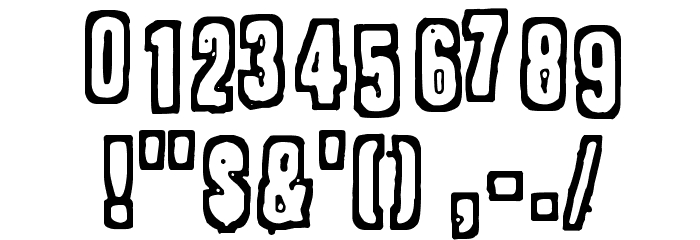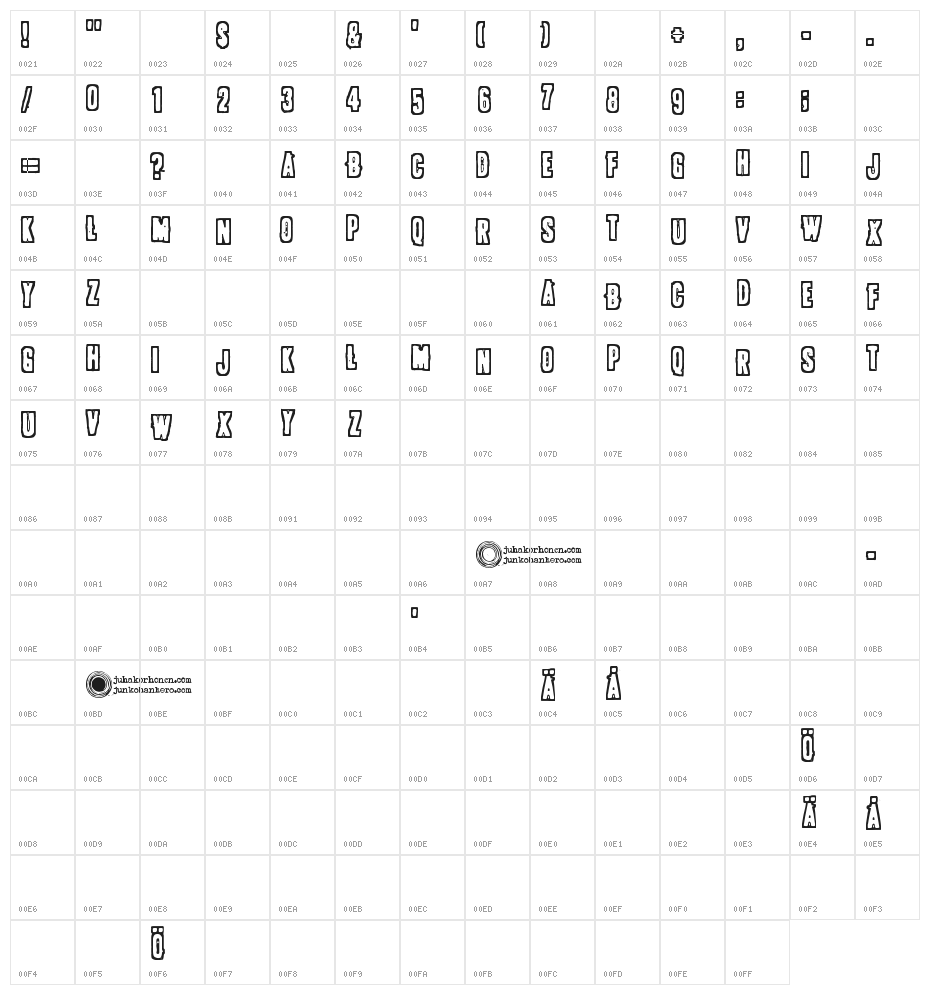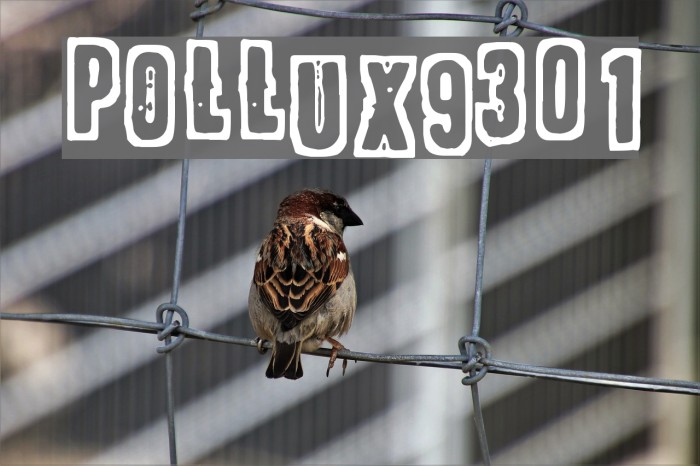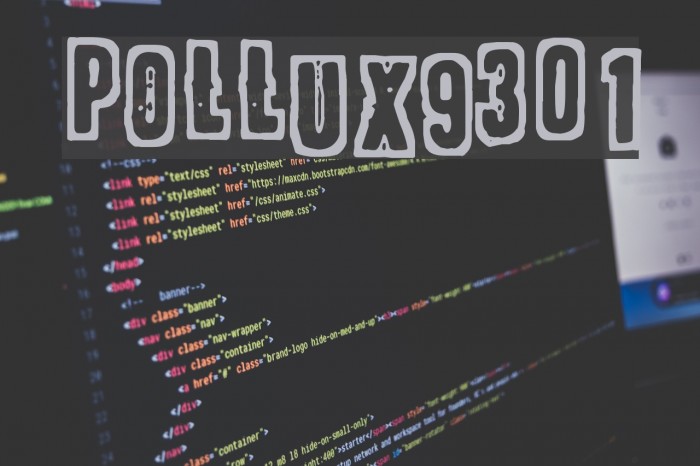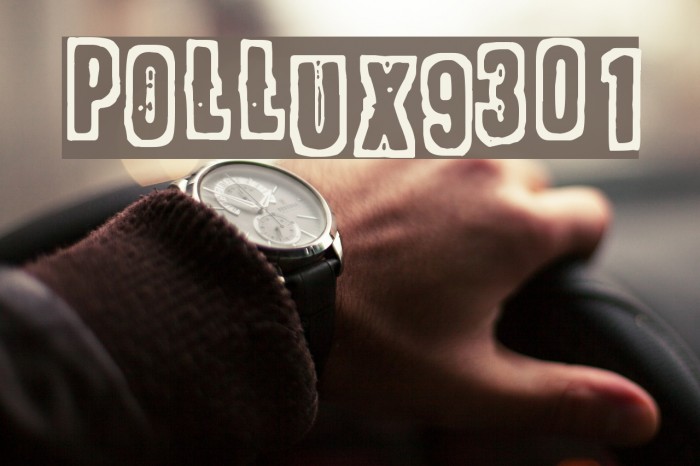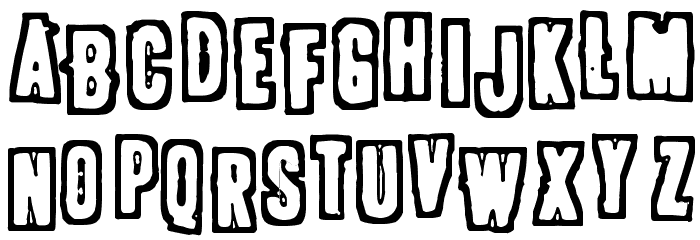
POLLUX9301 Font
POLLUX9301 Description
This font features a bold and rugged style with a distressed, grunge-like appearance. Each character is outlined with a thick, uneven stroke, giving it a hand-drawn, organic feel. The interior of the letters is filled with a solid color, contrasting with the rough edges. This font's unique texture and boldness make it stand out, ideal for designs that require a strong visual impact. The uppercase and lowercase letters maintain a consistent style, while the numbers and special characters complement the overall aesthetic.
| Proposed Projects | Ideal for posters, album covers, branding for edgy or alternative products, and any design needing a bold, impactful statement. |